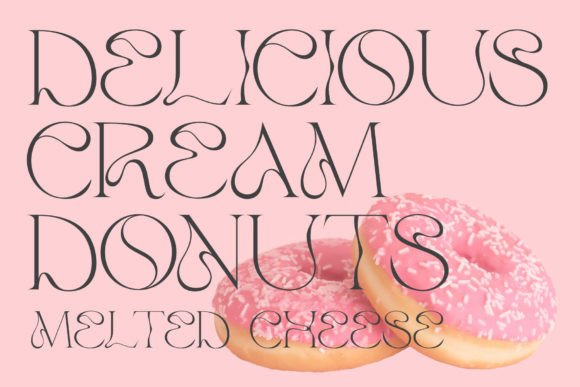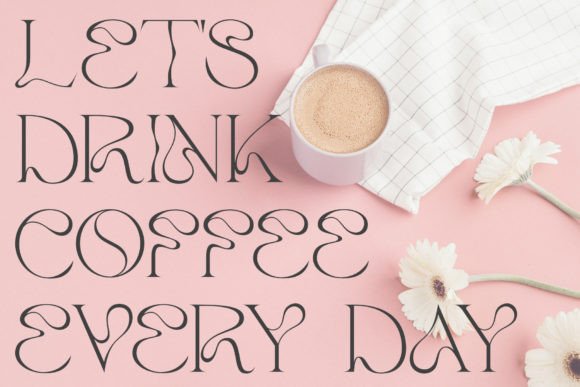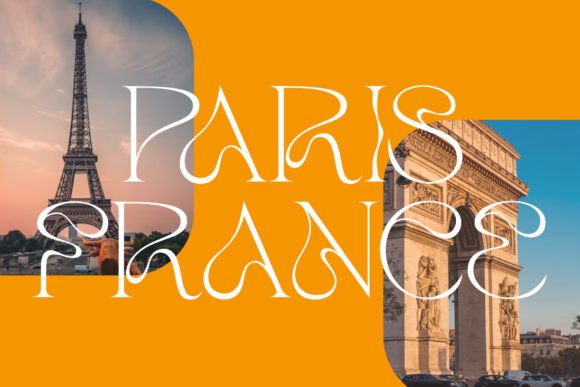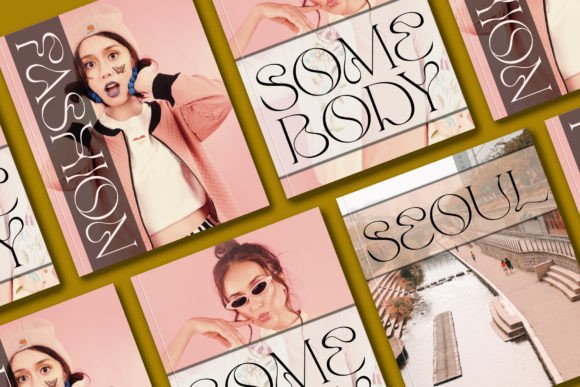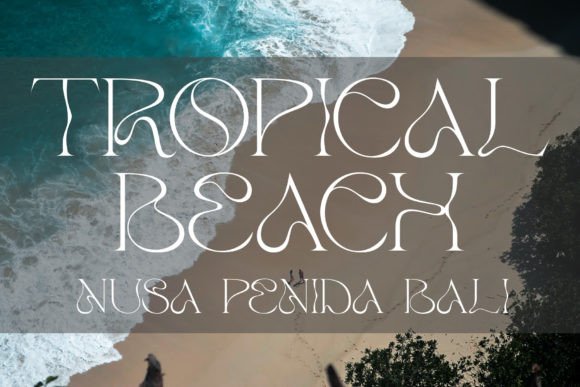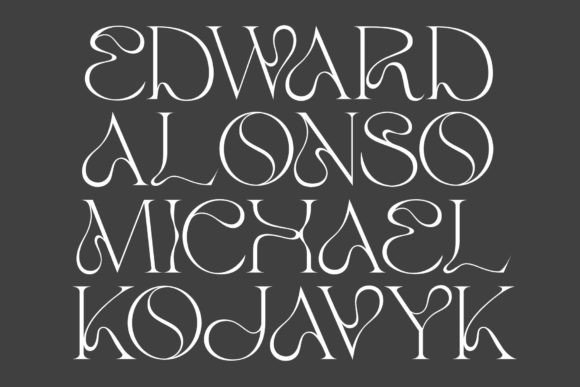
Introduction to Rabenk Font
Rabenk is a modern and stylish serif font.
Its charming and chic appearance will definitely come in handy when you need to create sophisticated and refined designs .